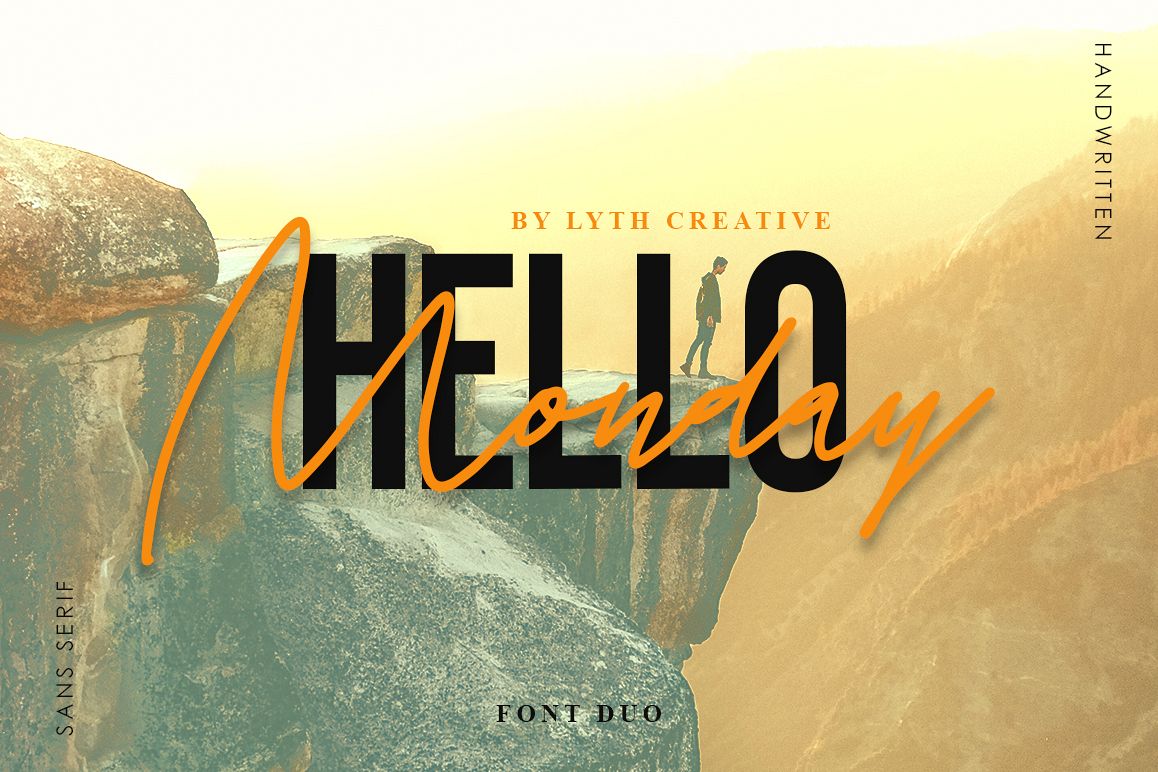
Hello Monday
Hello Monday is a fun and cool handwritten font with a summery theme. Get inspired by its effortless style! contemporary pair of handwritten and sans serif fonts.
It will make you unique touch on any creative project like logos & branding, web designs, social media posts, advertisements & product designs, etc.